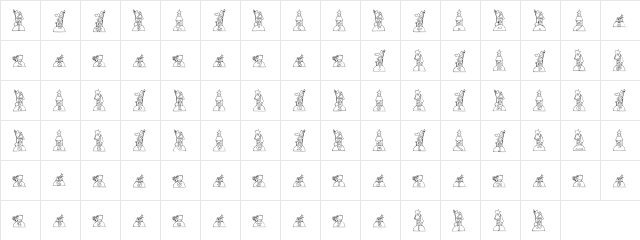
PC Saltbox Hill Regular Font Preview
PC Saltbox Hill Regular
Design Context for PC Saltbox Hill Typeface
PC Saltbox Hill is a composed and adaptable typeface that performs quietly and consistently across a wide range of design contexts.